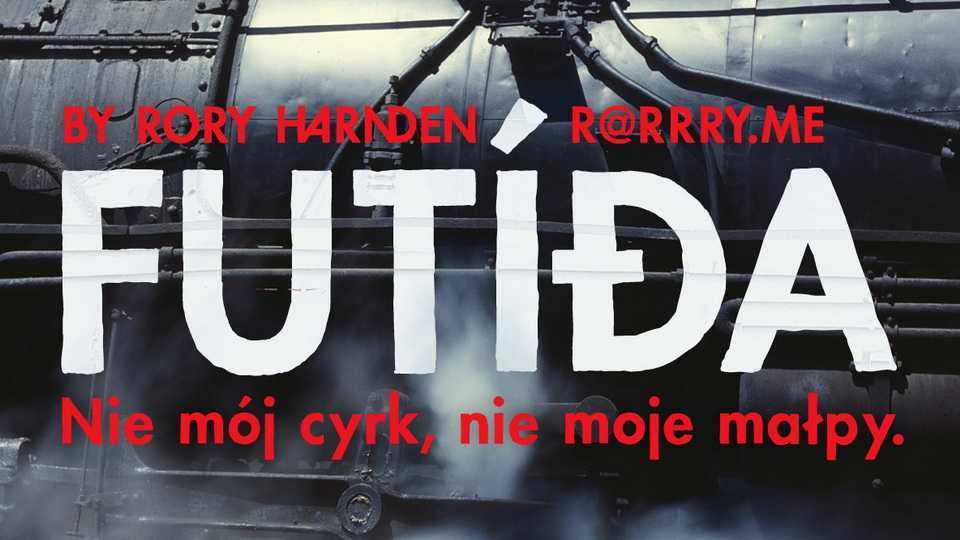
Download Futida font, a hand-inked recreation of a classic typeface. Futida works best at big sizes. Be sure to turn on discretionary ligatures to enjoy a set of entirely inappropriate ligatures.
Designer: Rory Harnden